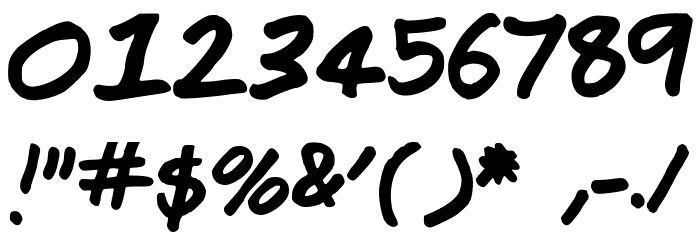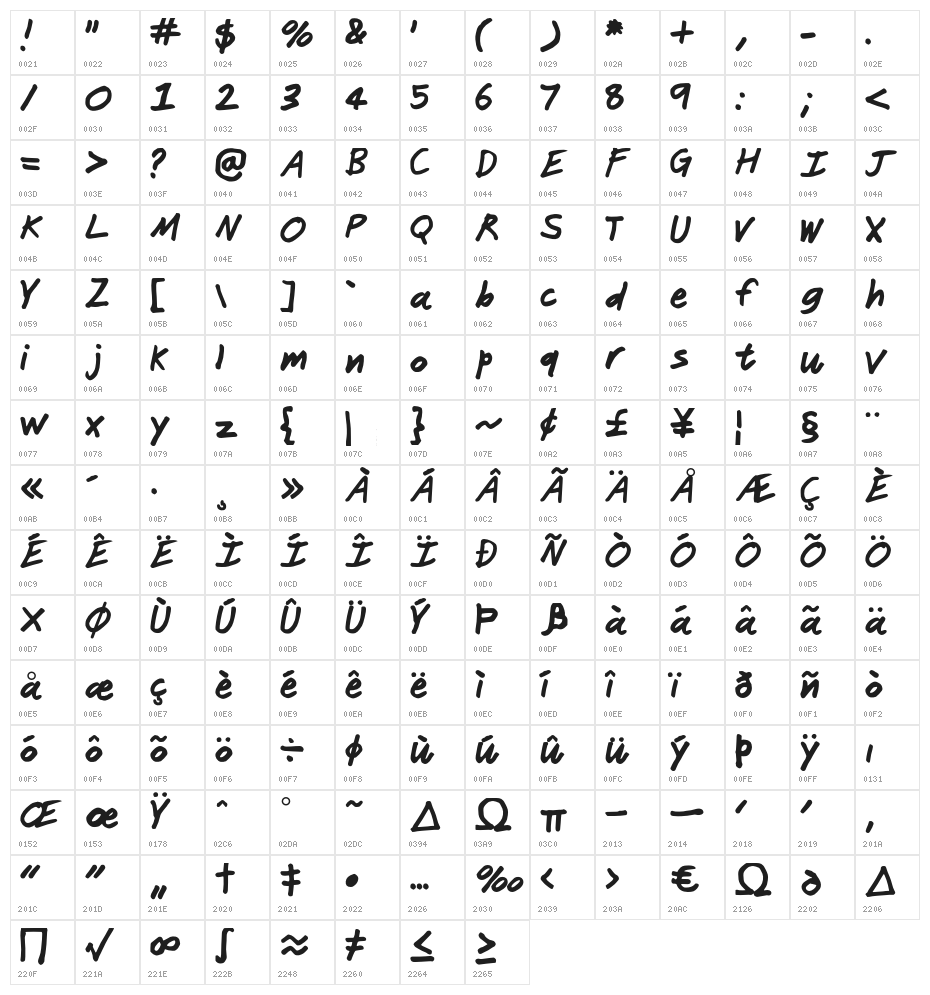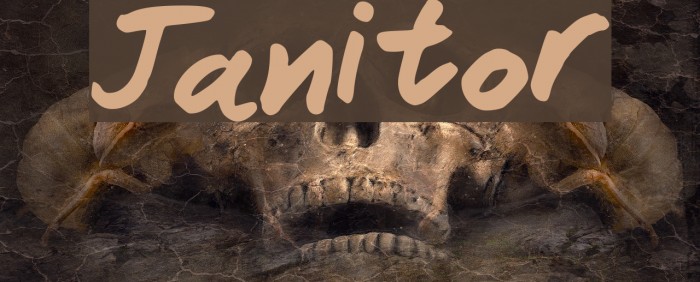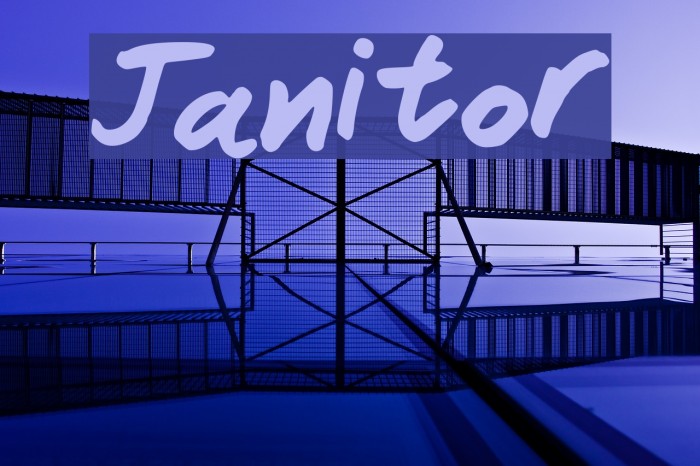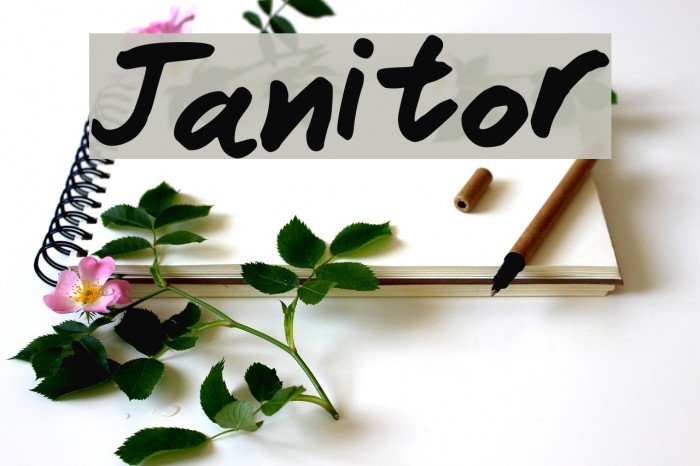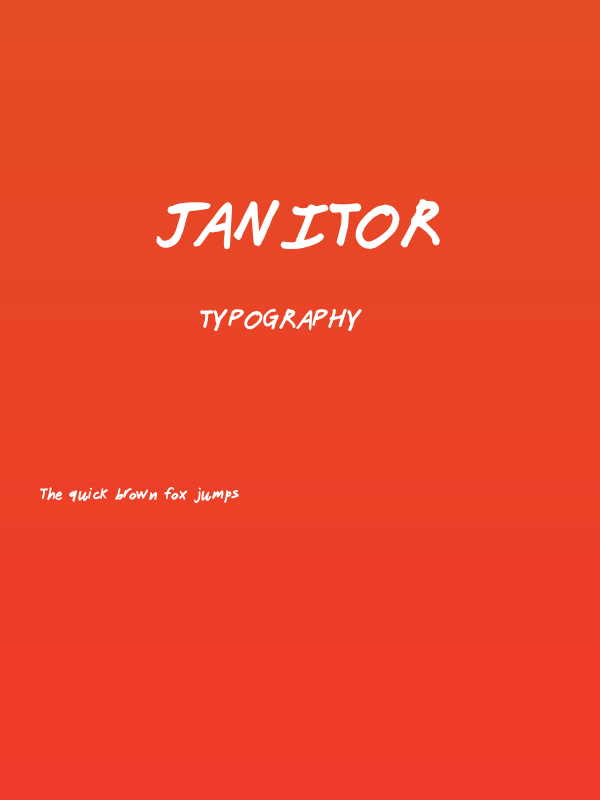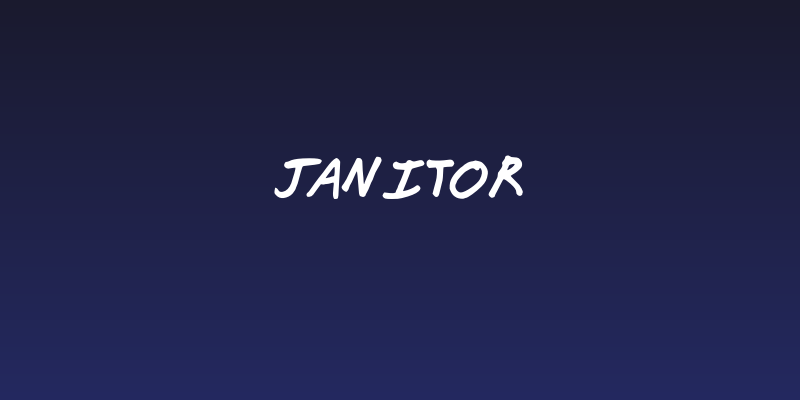
Janitor Font
Janitor Description
This font exhibits a playful and casual handwritten style, characterized by its fluid and slightly irregular strokes. The letters have a dynamic and energetic appearance, with varying thickness that adds a sense of movement and personality. The uppercase and lowercase letters are well-balanced, maintaining a consistent flow throughout. The numbers and special characters follow the same lively aesthetic, making the font versatile for various creative applications. Its informal nature makes it suitable for projects that require a personal touch or a friendly, approachable vibe.
| Use Case | Logos, Headlines, Informal text |
| Proposed Projects | Ideal for greeting cards, invitations, personal branding, children's books, and casual social media graphics. |